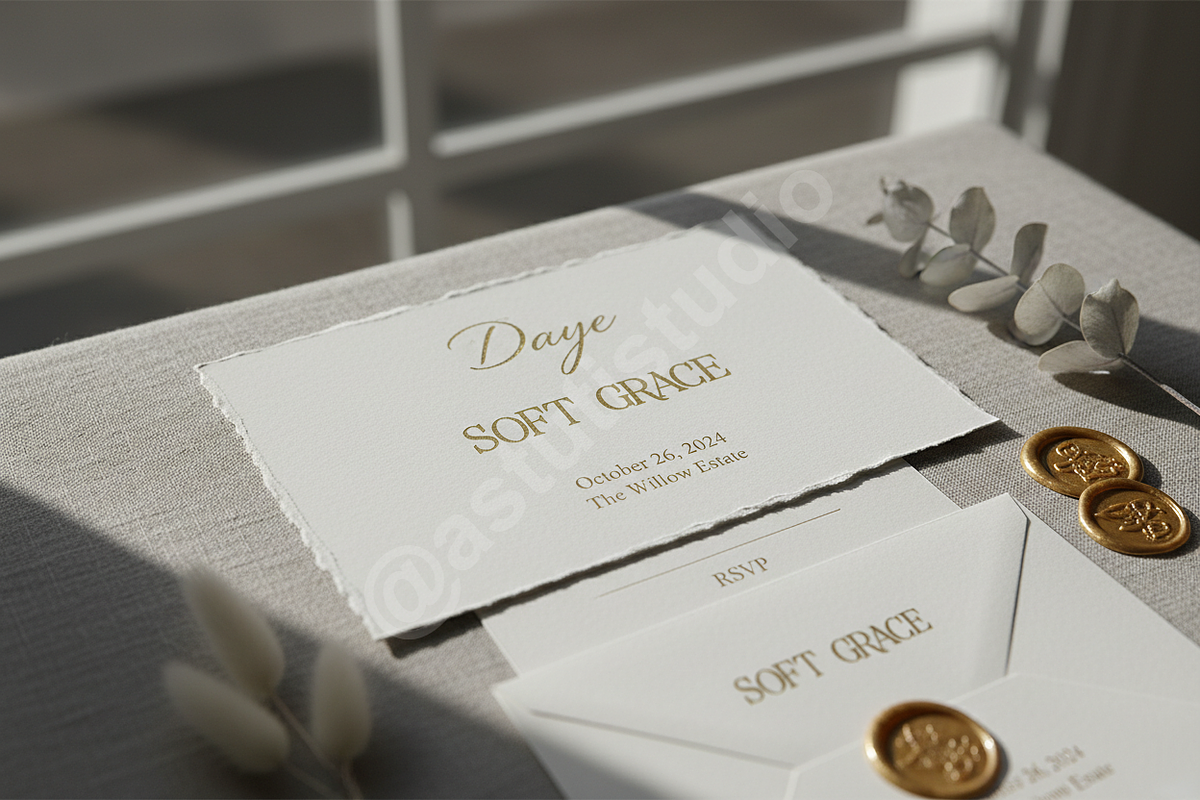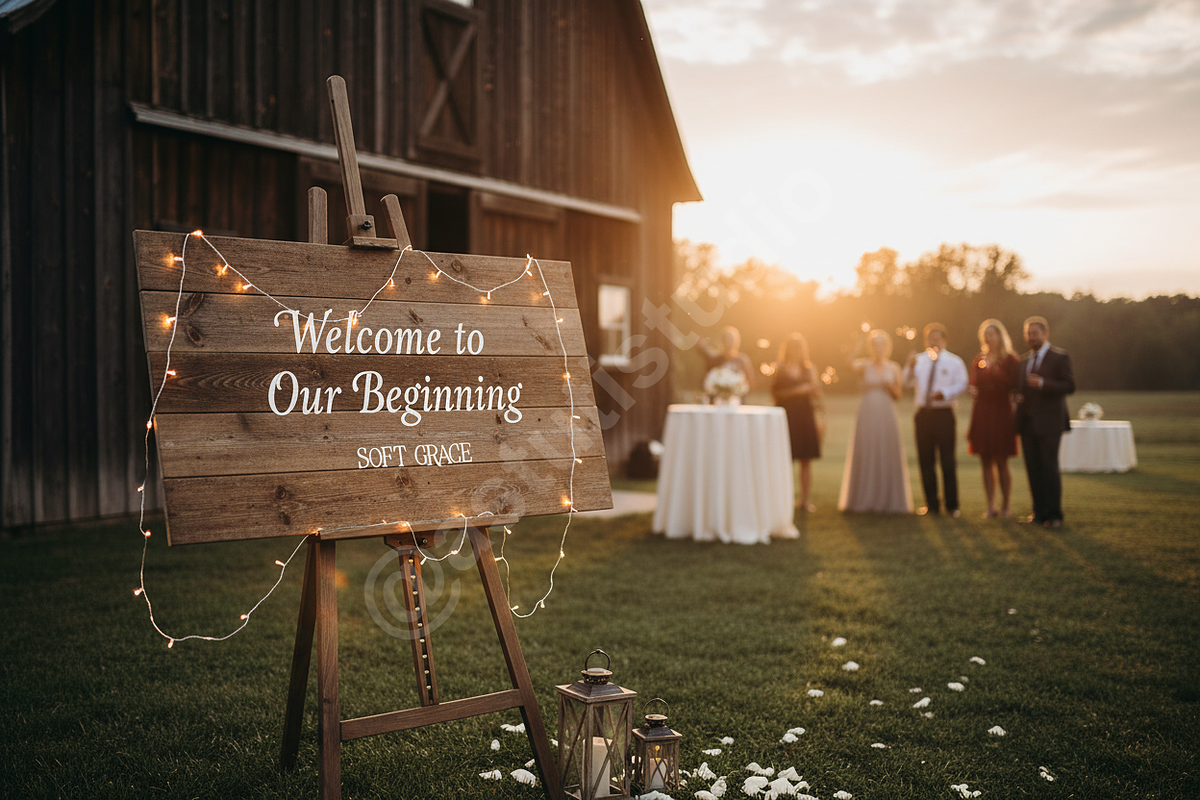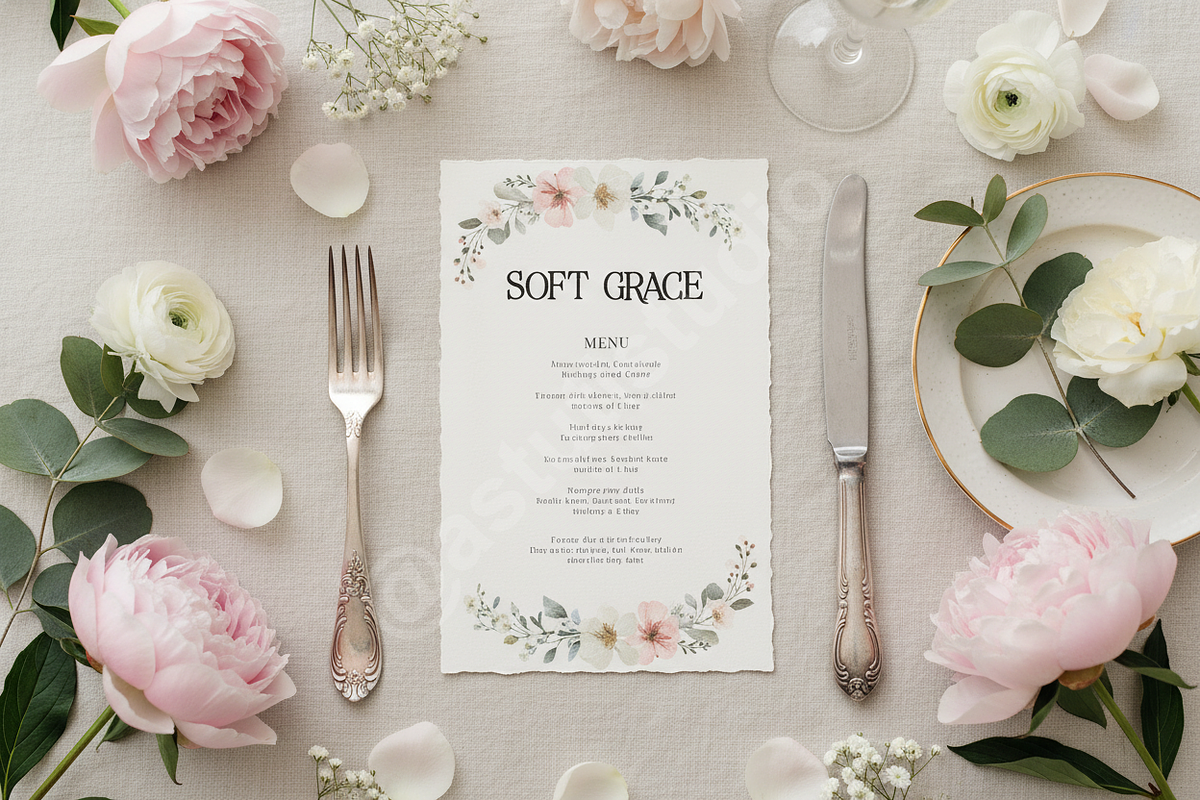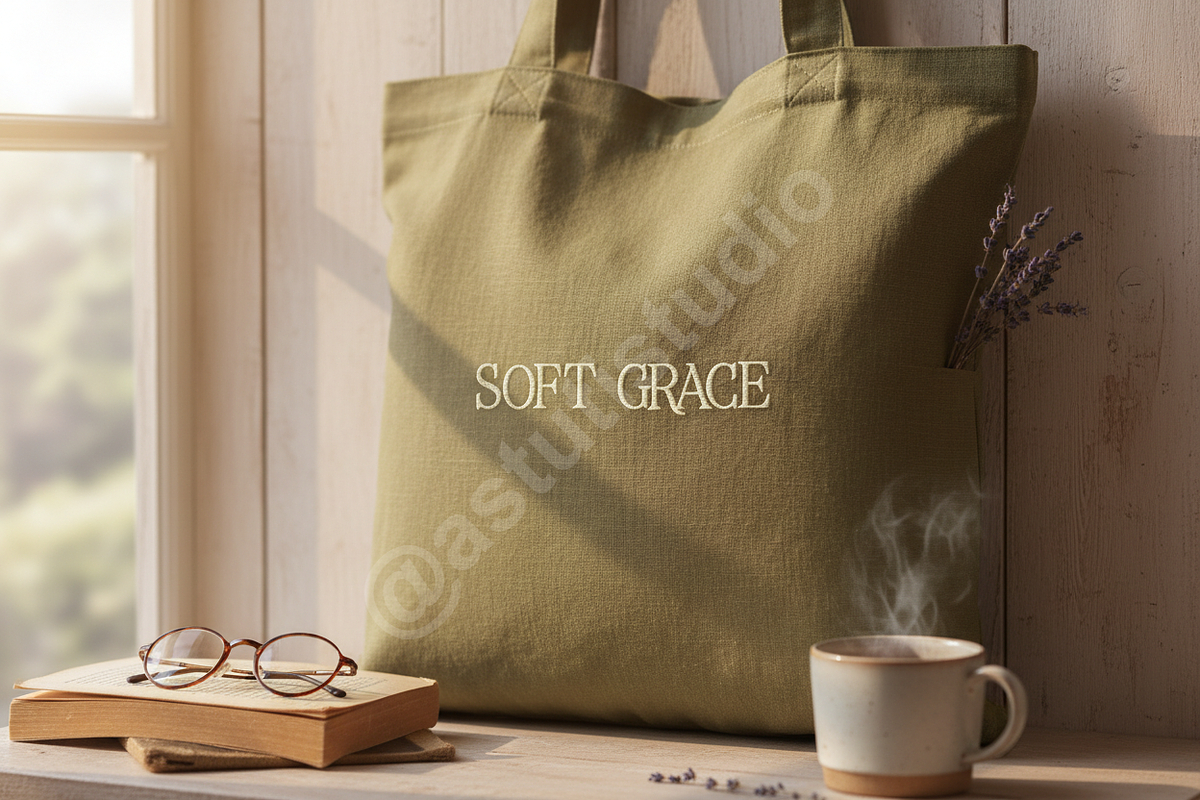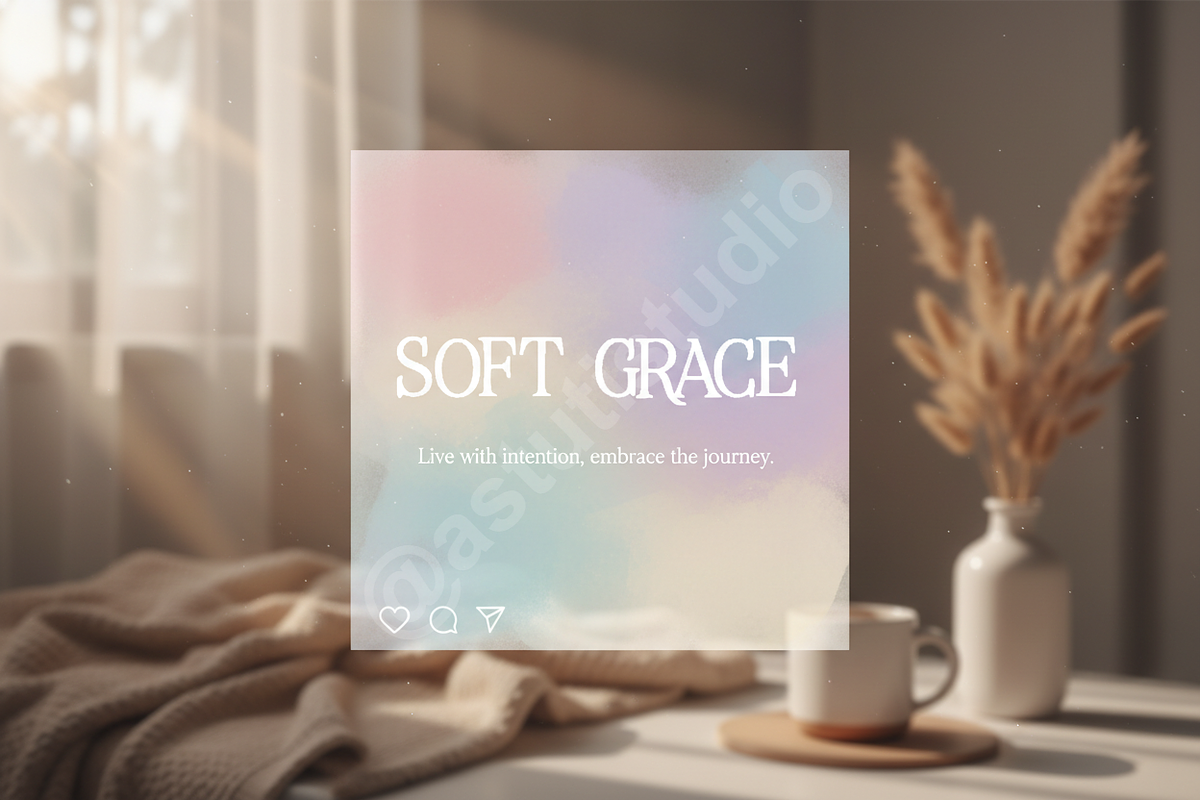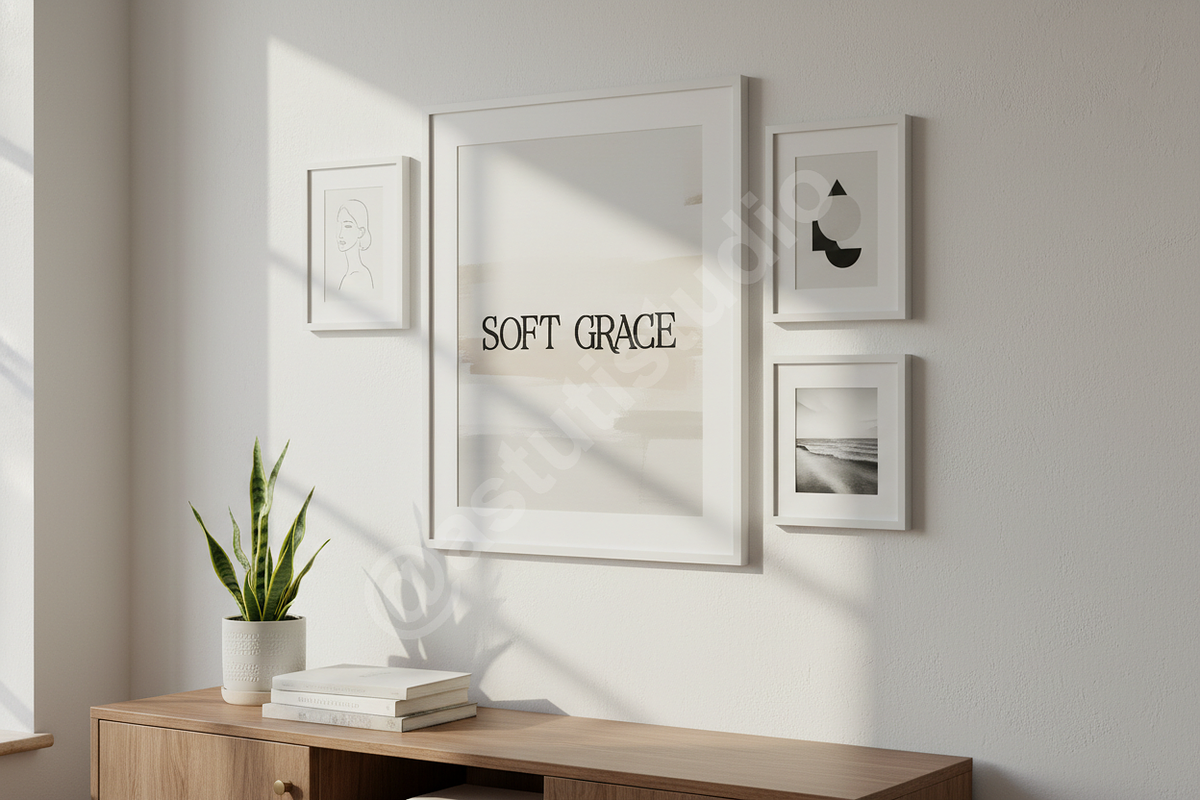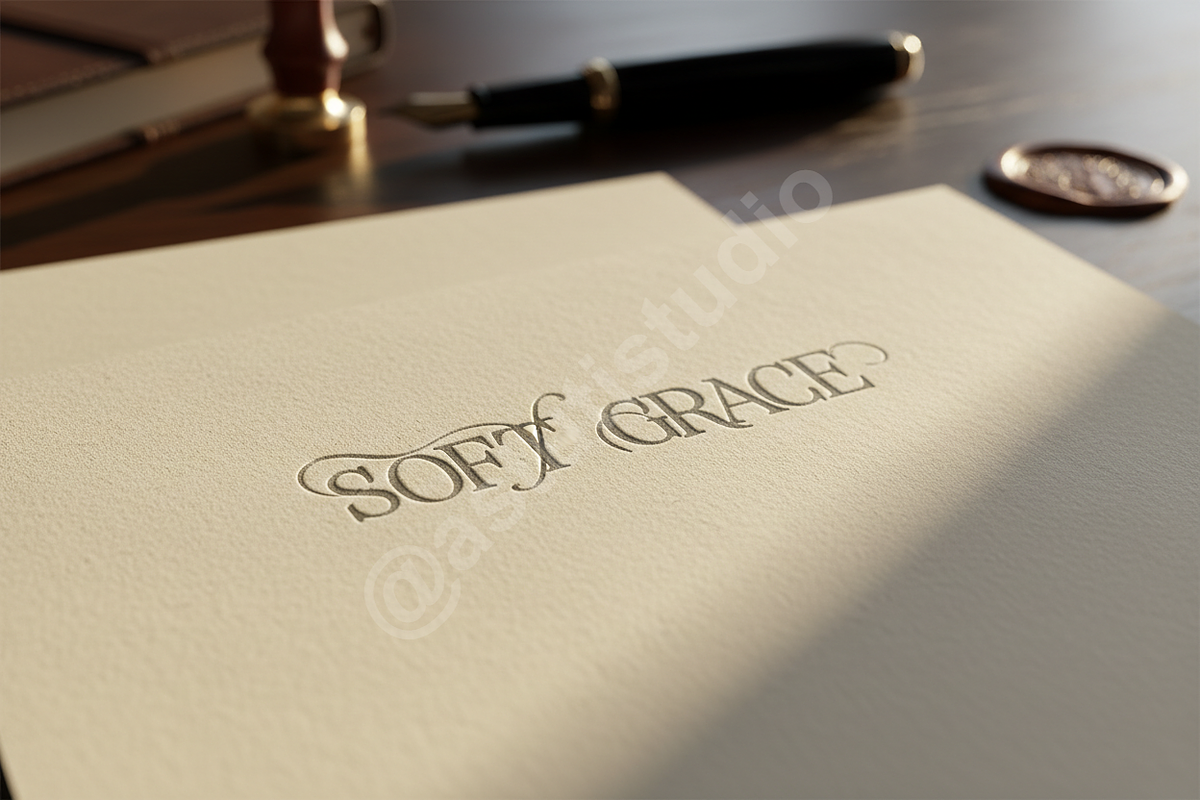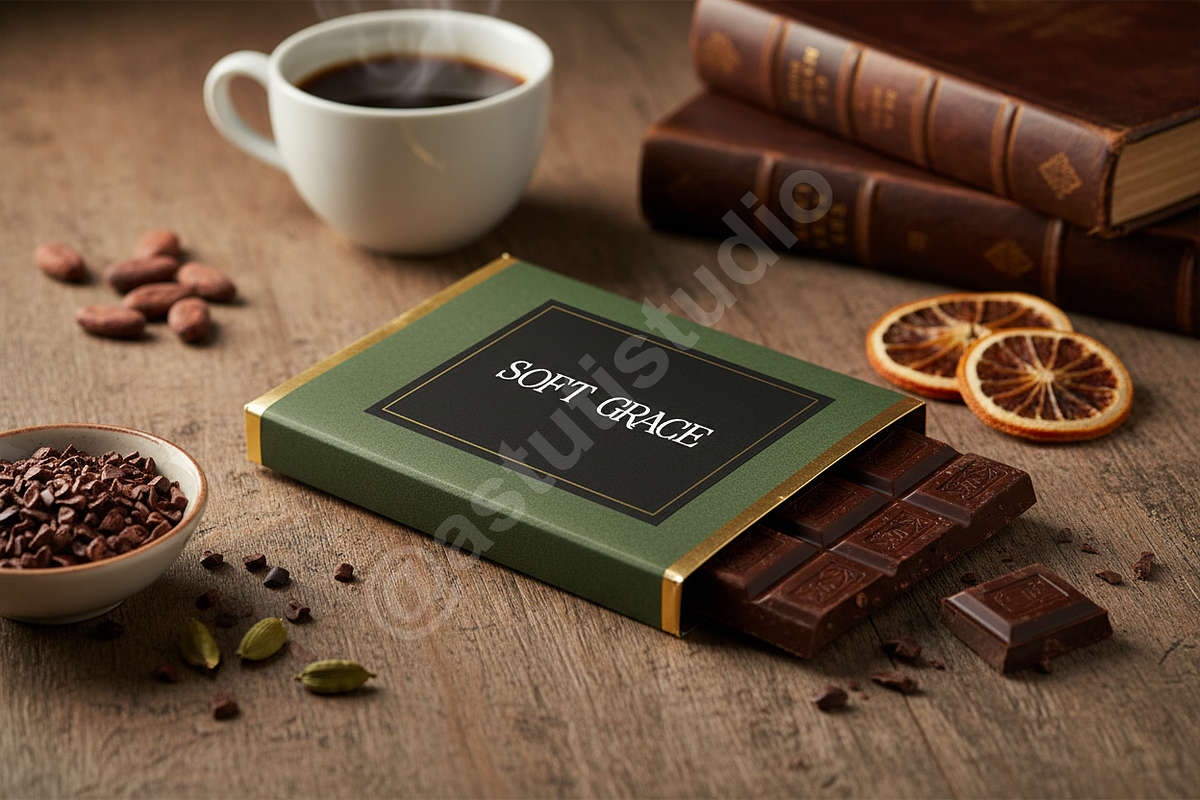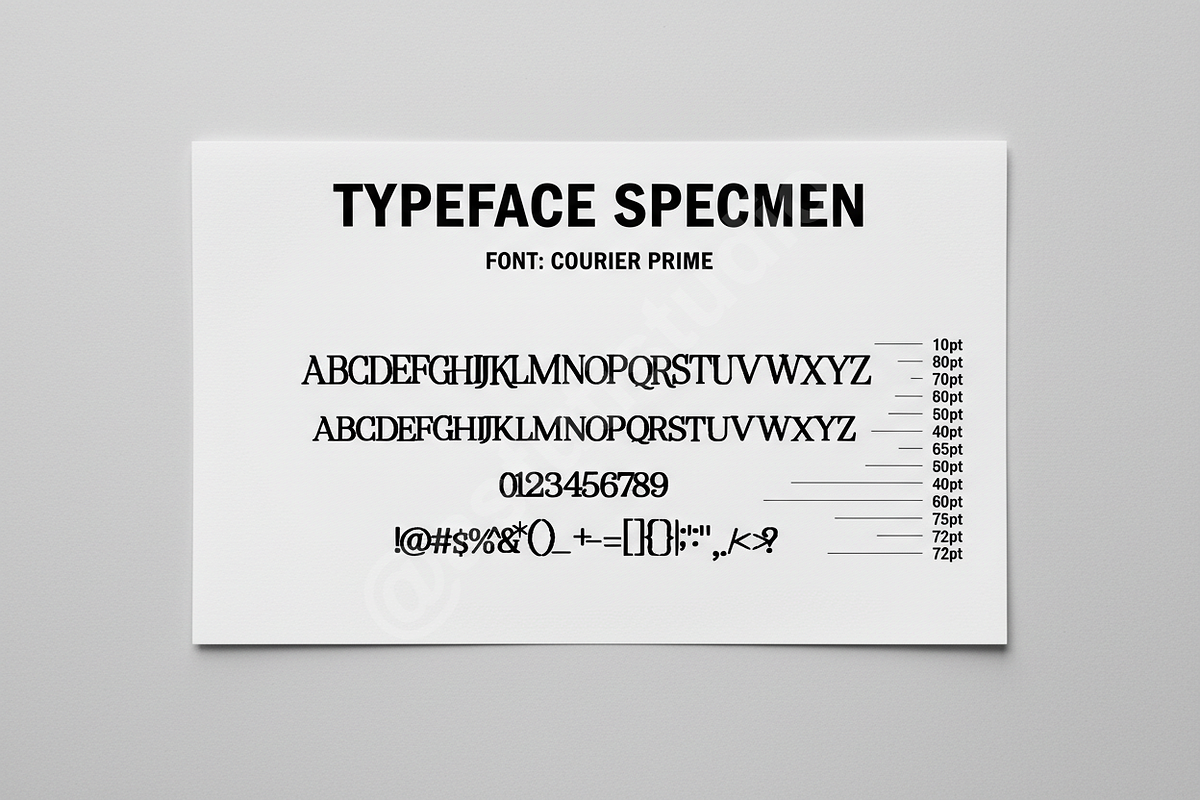
Daye - Elegant Serif Font for Luxury
Daye is a sophisticated serif font meticulously crafted to infuse your creative projects with timeless elegance and refined luxury. Its graceful curves, high contrast, and balanced letterforms are designed to make a statement, establishing a premium aesthetic for any endeavor. Daye is the definitive choice for those seeking to convey exclusivity and class across their designs, perfect for high-end branding, captivating editorial layouts, and distinguished social media content.
Key Features: • Elegant High Contrast Serif: A modern take on a classic style, offering exceptional readability and visual impact. • Refined Character Set: Thoughtfully designed uppercase and lowercase letters that exude sophistication. • Extensive Ligatures & Alternates: Enhance your typography with stylistic variations for a truly unique appearance. • Multilingual Support: Broad language compatibility to reach a global audience. • Versatile Formats: Supplied in OTF, TTF, and WOFF for both print and web applications.